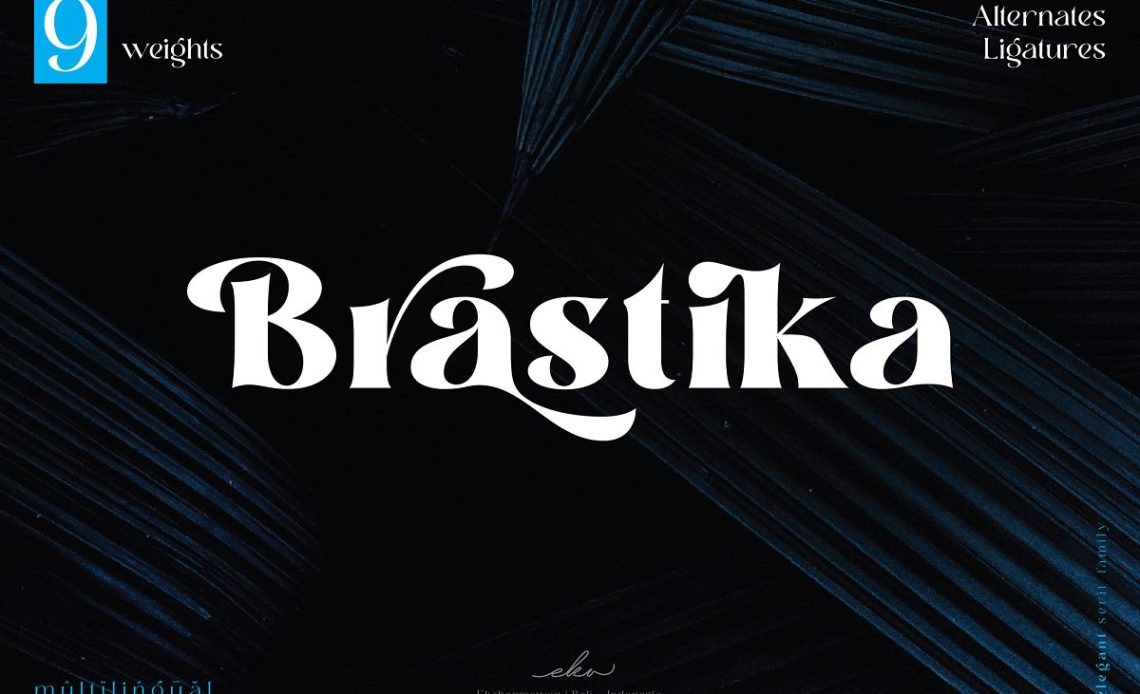
Introducing Brastika - an exquisite modern serif font that will take your design projects to the next level. Created by the talented Eka Hermawan, this font family offers a stunning collection of 9 weights, ranging from Thin to Black.
But what sets Brastika apart is its incredible versatility. With alternate characters (PUA Encoded) and ligatures, you have the power to create truly unique and captivating typographic designs. Whether you're working on a logo, branding materials, posters, magazines, labels, merchandise, invitations, presentations, advertisements, or quotes, Brastika is the perfect choice to make your project shine.
Brastika comes with full OpenType support, making it a breeze to use. Its playfulness shines through with ligatures and alternate options, giving you endless creative possibilities. And with multilingual support, you can effortlessly reach audiences around the world.
One of the standout features of Brastika is its PUA Encoding. This means you have access to a wide range of additional characters, allowing you to truly personalize your designs and make them stand out from the crowd.
In conclusion, Brastika is not just a font - it's a game-changer. Its elegance, versatility, and attention to detail make it a must-have for designers and creatives alike. Elevate your projects with Brastika and witness the magic it brings to your design journey.